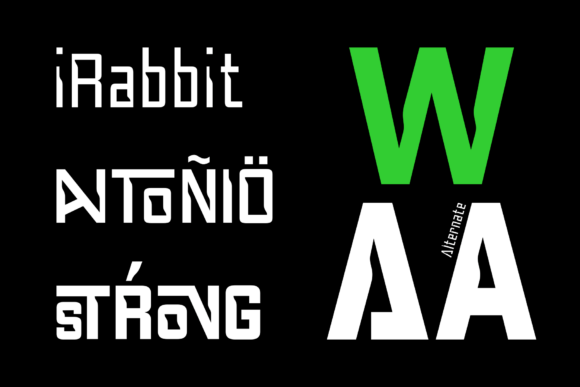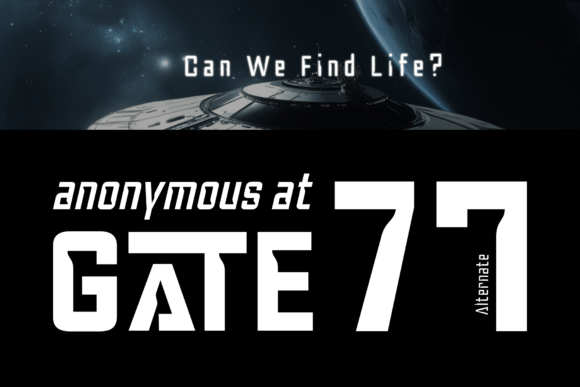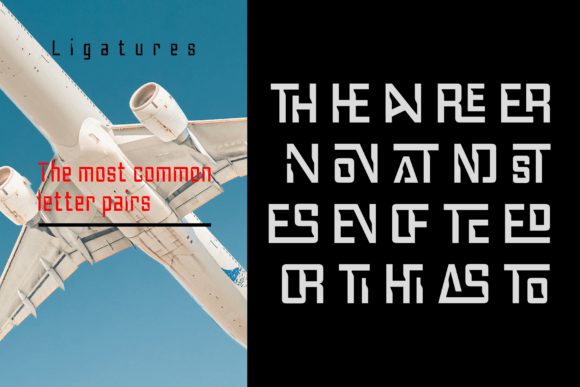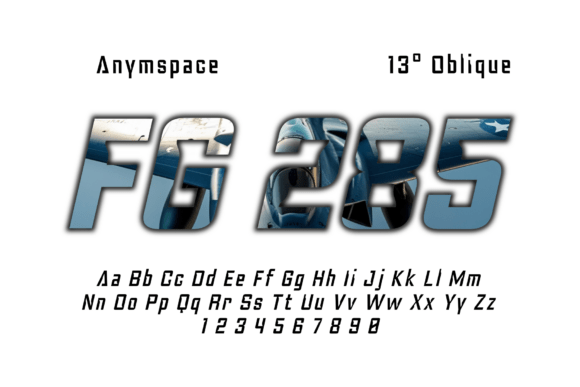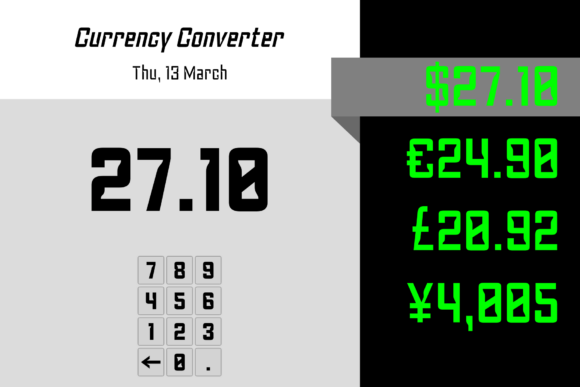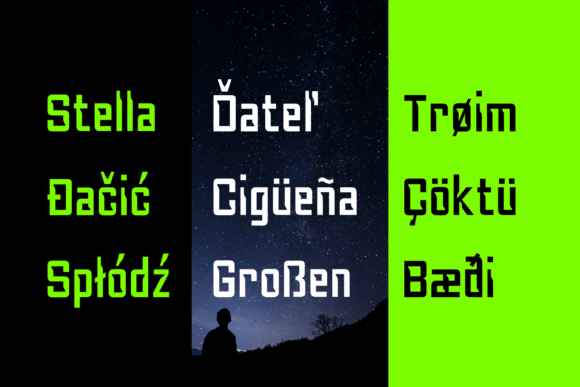
Introducing Anymspace Font: Elevate Your Designs with Modern Elegance
In the world of design, typography plays a crucial role in conveying messages, expressing creativity, and capturing attention. For designers and crafters seeking a font that embodies modernity, elegance, and futurism, Anymspace Font is an exceptional choice. This versatile font is designed to enhance various design projects, including logos, cover designs, magazines, brochures, web designs, posters, and more.
What Makes Anymspace Font Stand Out?
Anymspace Font is not just another typeface; it’s a design powerhouse that offers a unique blend of style and functionality. Here are some key features that make it an indispensable tool for designers:
- Modern, Elegant, and Futuristic Designs: Anymspace Font is crafted to bring a touch of sophistication and futurism to your designs. Its sleek lines and contemporary look make it perfect for projects that demand a modern aesthetic.
- Unique Ligatures: One of the standout features of Anymspace Font is its inclusion of unique ligatures on the most common letter pairs. These ligatures add a creative flair to your text, making it more visually appealing. The best part? This feature is active by default, but you also have the option to disable it if you prefer a more traditional look.
- Alternates and Multilingual Support: Anymspace Font doesn’t stop at ligatures. It also comes equipped with several alternates, giving you the flexibility to experiment with different styles and find the perfect fit for your project. Additionally, its multilingual support ensures that you can use it for projects in various languages, making it a versatile asset in your font library.
Applications of Anymspace Font
The versatility of Anymspace Font is one of its most compelling advantages. Here are some of the many ways you can use this font to elevate your designs:
- Logo Design: Create memorable and stylish logos that stand out. Anymspace Font’s modern look and unique ligatures can help your brand identity shine.
- Cover Design and Magazine Layouts: Add a touch of elegance to your magazine covers, articles, and editorial layouts. The font’s readability and style make it perfect for both headings and body text.
- Brochure and Flyer Design: Make your marketing materials more engaging with Anymspace Font. Its futuristic vibe can help you catch the eye of potential customers.
- Web Design: Enhance your website’s typography with a modern and responsive font. Anymspace Font is designed to look great on all devices, ensuring a superior user experience.
- Poster Design: Whether you’re promoting an event, a product, or an idea, Anymspace Font can help you create visually stunning posters that capture attention.
Tips for Using Anymspace Font Effectively
To get the most out of Anymspace Font, consider the following tips:
- Experiment with Ligatures: Don’t be afraid to try out the unique ligatures. They can add a distinctive touch to your text, but use them judiciously to maintain readability.
- Mix and Match Alternates: Take advantage of the font’s alternate styles to create visual hierarchy and add variety to your text.
- Consider Multilingual Support: If you’re working on a project that requires text in multiple languages, Anymspace Font’s multilingual support ensures consistency and quality across all languages.
Anymspace Font is a powerful tool for designers and crafters looking to infuse their projects with a modern, elegant, and futuristic aesthetic. Its unique ligatures, alternates, and multilingual support make it a versatile and valuable addition to any font library. Whether you’re working on a logo, magazine, website, or poster, Anymspace Font can help you achieve your design goals with style and sophistication. Explore the possibilities of Anymspace Font today and take your designs to the next level.